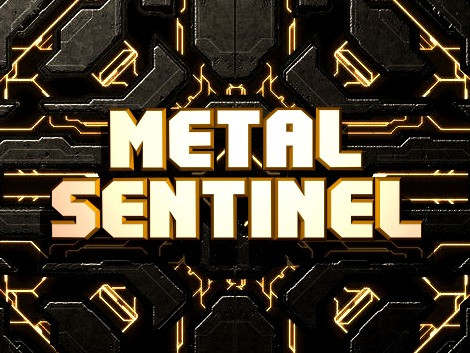
Metal Sentinel Font
Metal Sentinel Display Font, This bundle features strong, confident and powerful typefaces designed to work great with sports logos, club branding, apparel applications, labels and more.